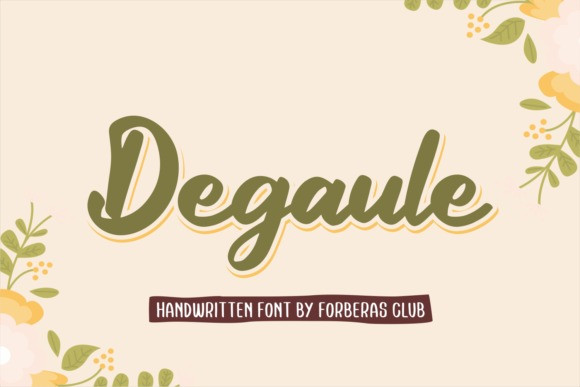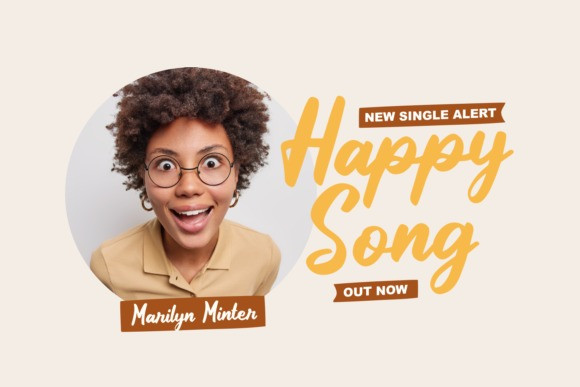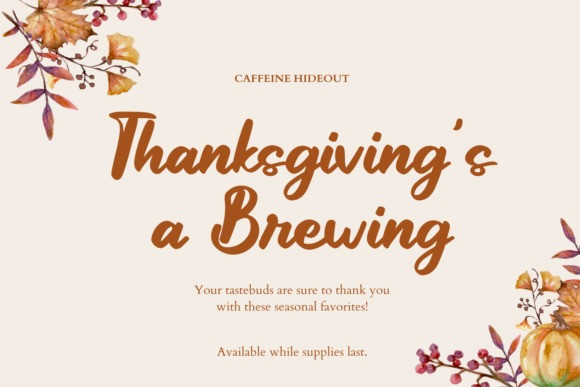
Degaule Font
Degaule is a lovely script font featuring charming, playful characters that seem to dance along the baseline. Add this font to your most creative ideas, and notice how it makes them stand out!